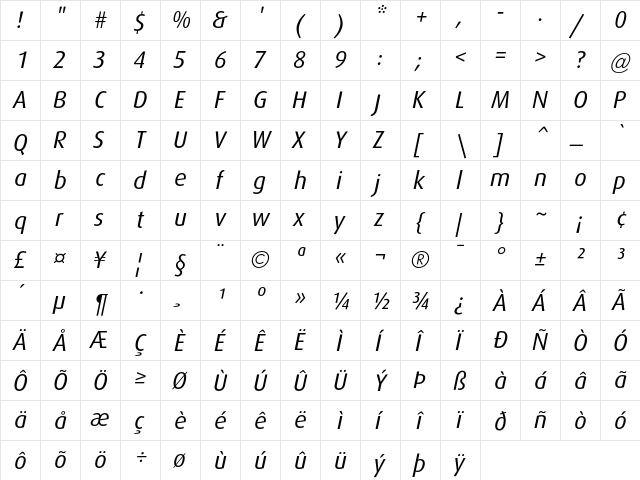
Dax Italic Font Preview
Dax Italic
Design Context for Dax Typeface
Dax takes a measured approach to typography — its balanced proportions and neutral character make it a reliable workhorse for both digital and print work. The dynamic lean of this cut emphasises speed and emphasis in any layout.
Pro Tip: Try Dax for annotation and caption copy alongside an upright companion — the contrast in angle creates a dynamic but ordered typographic system.